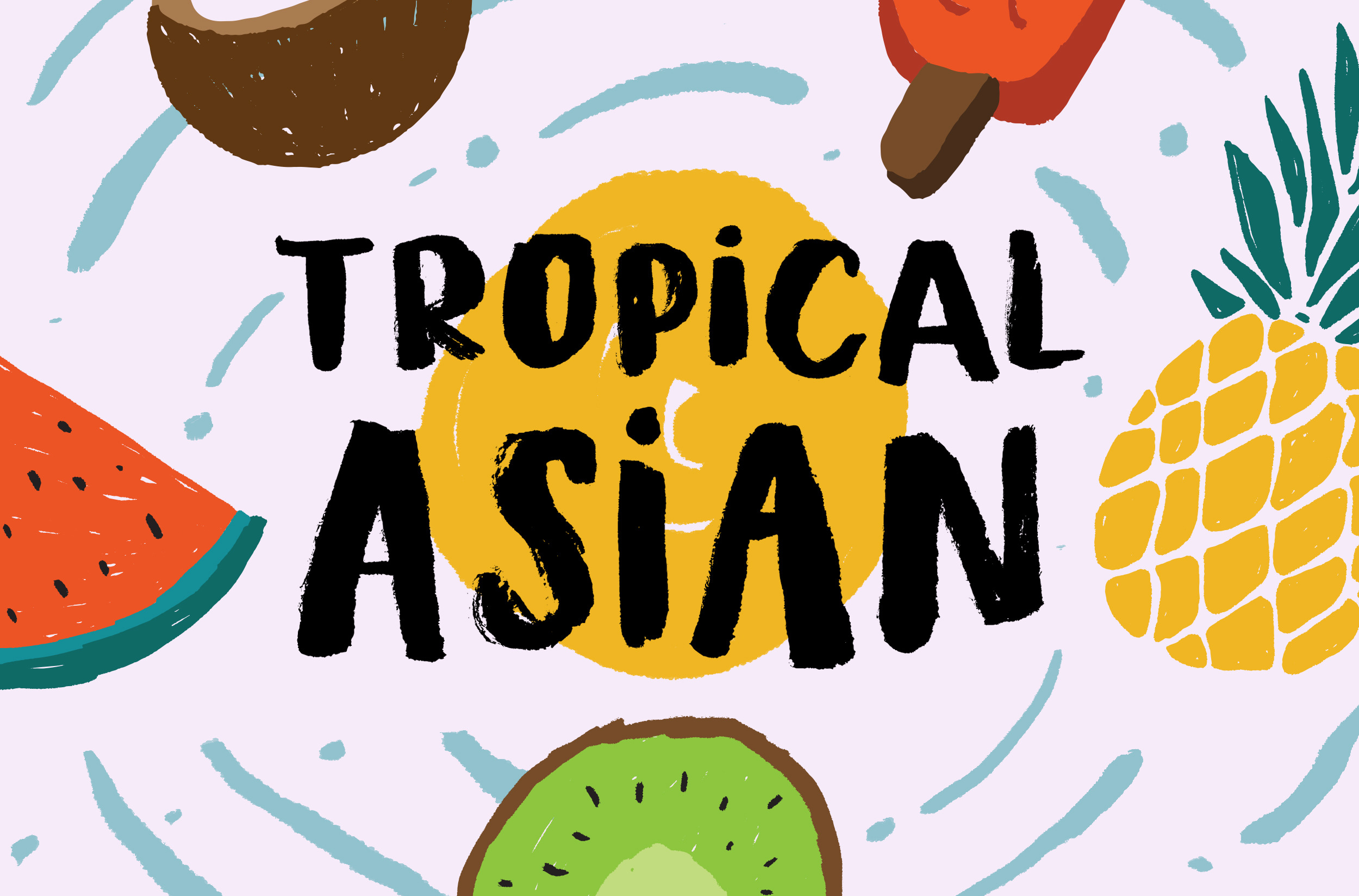
Tropical Asian - Organic Brush Font
Tropical Asian, inspired from the summer vibes and the fun of careless brush and ink play in paper. Perfectly fit for welcoming summer and your casual fun branding projects.
Teamed up with the Stylistic Alternates for each Uppercase and Lowercase letters, Multilanguage Support, and Vector Illustration pack to vibin' up this font.